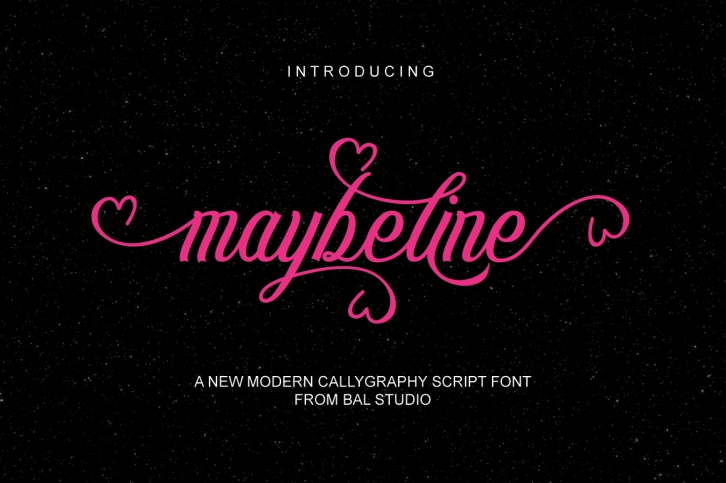
maybeline is a beautiful font that was designed by Bal Studio. It's a great choice for designers and creatives who need such a font. It was released on November 18, 2018 and the file size is 13.79 MB. maybeline may give a more youthful, expressive and casual look to your project. It is a very beautiful, refined, elegant, and high-quality font.